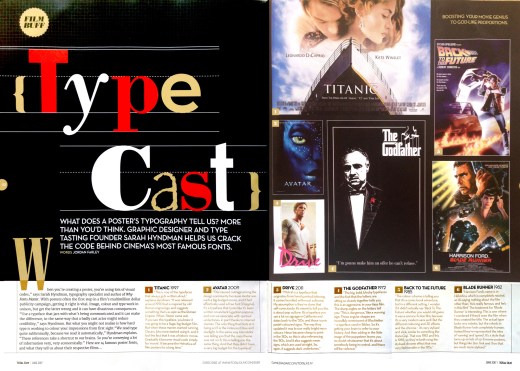
Type Cast. What does a poster’s typography tell us? More than you’d think. Graphic designer and Type Tasting founder Sarah Hyndman helps us crack the code behind cinema’s most famous fonts.